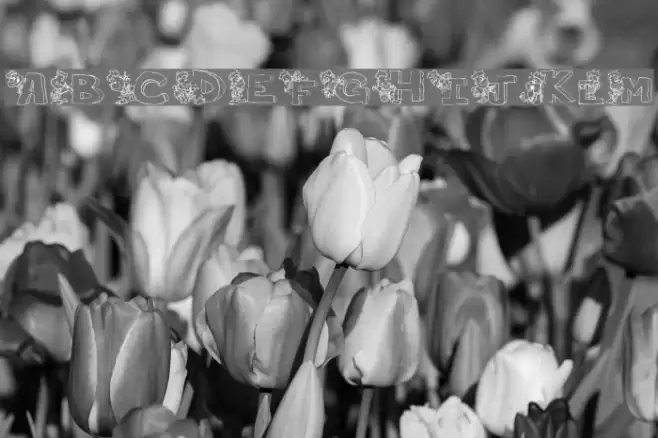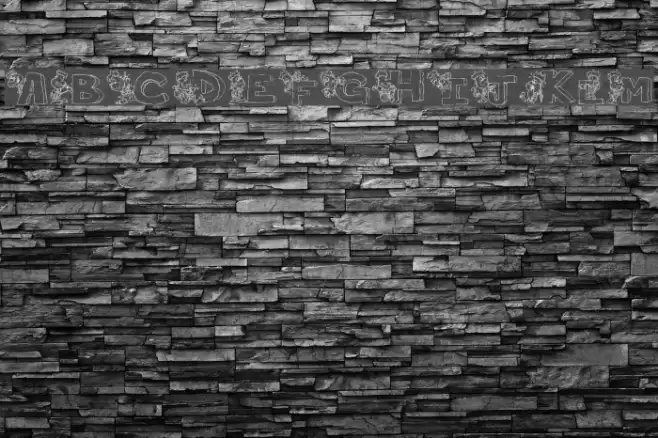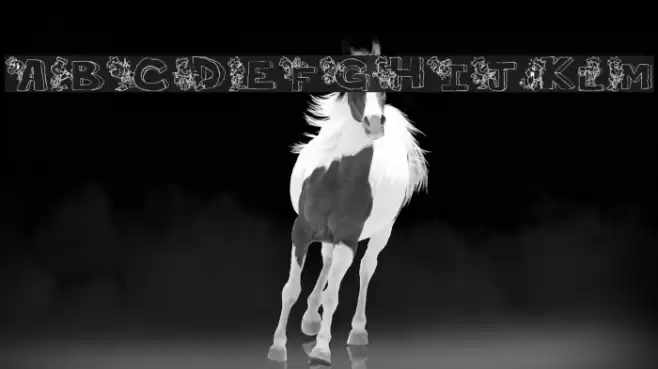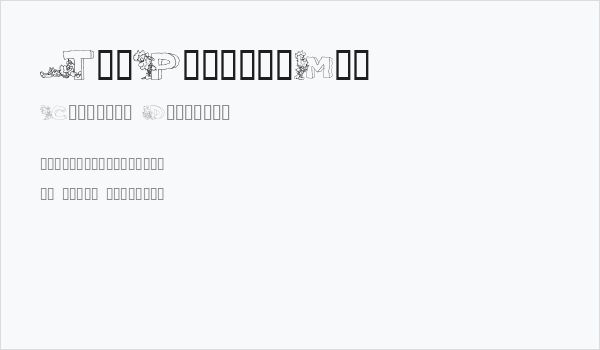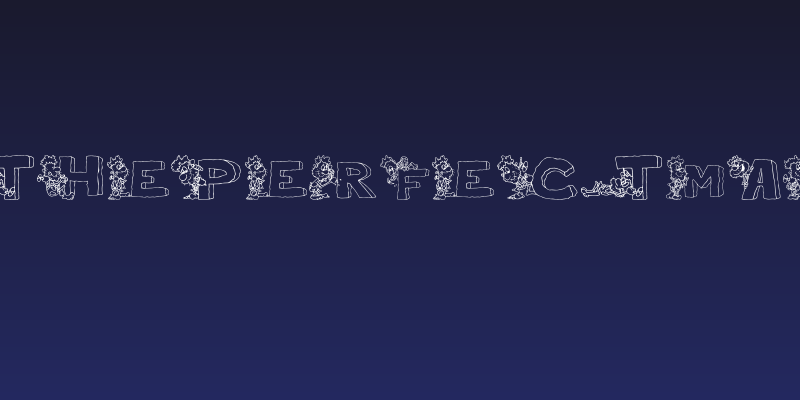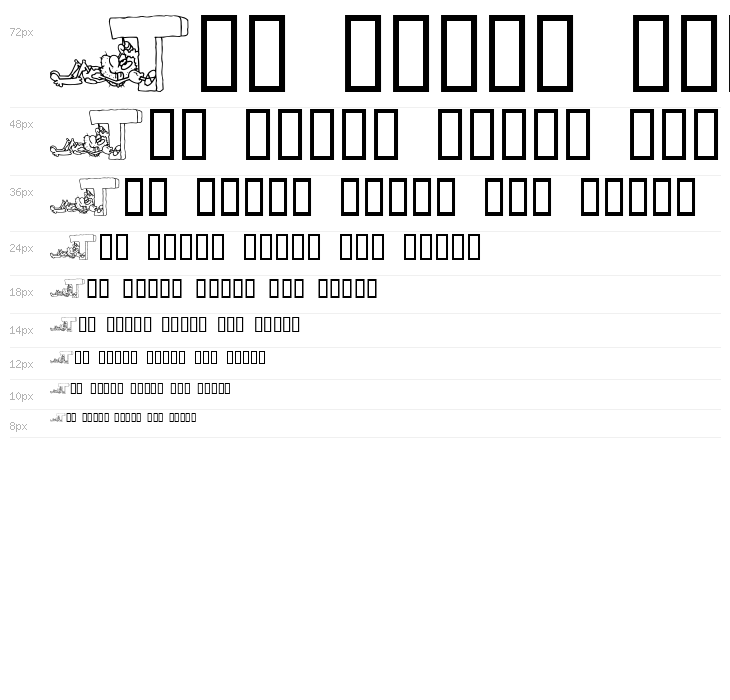
ThePerfectMan Font
ThePerfectMan Description
This font features an intricate and decorative design, where each letter is adorned with floral and vine-like embellishments. The uppercase letters are particularly ornate, with detailed patterns that give a sense of elegance and complexity. The style is reminiscent of vintage or classical typography, often used in decorative contexts. The overall appearance is artistic and visually captivating, making it suitable for projects that require a touch of sophistication and creativity.
Overall StyleVintage
Proposed ProjectsIdeal for wedding invitations, greeting cards, decorative posters, and artistic branding projects.